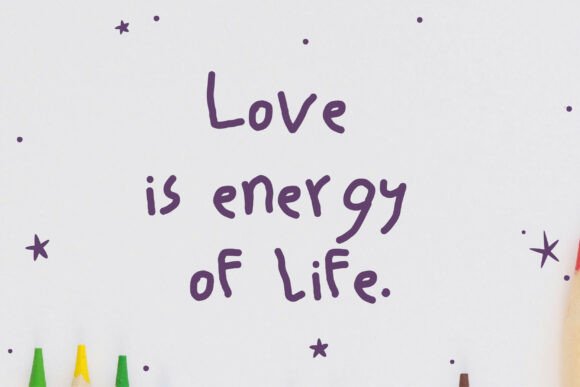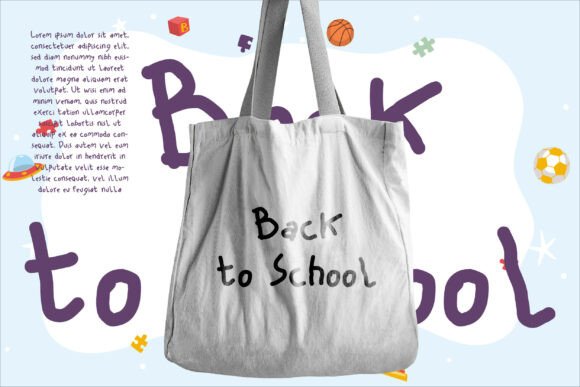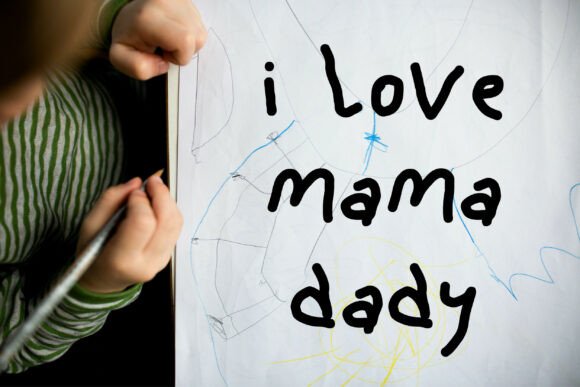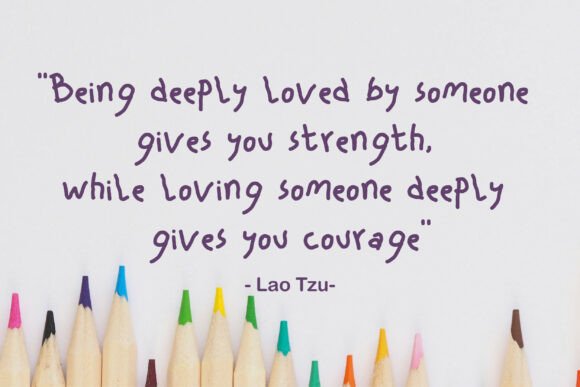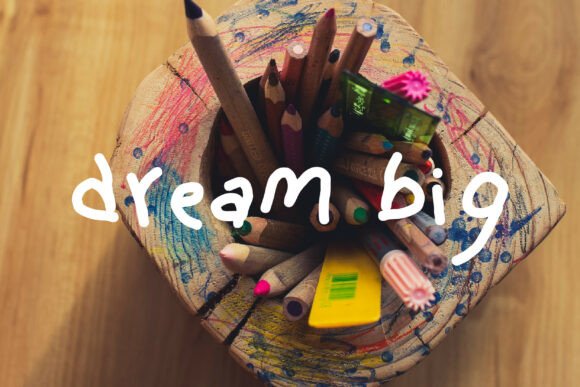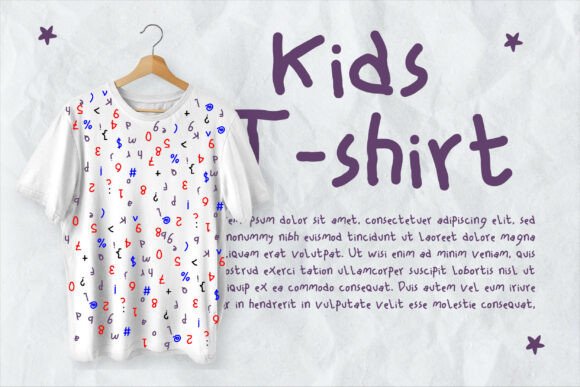
Introduction to Kids 3+ Font
Kids3+ font is a simple children’s handwriting font, suitable for all kinds of designs that require a childlike touch.
Its versatility makes it ideal for a variety of projects such as book covers, social media posts, logos, branding, digital planners, birthday invitations, greeting cards, photo albums, and more .
Key Features of Kids 3+ Font
Why Choose Kids 3+ Font?
Kids 3+ Font offers exceptional quality and versatility, making it a valuable addition to your design toolkit. Whether you’re creating for personal projects or commercial use, Kids 3+ Font delivers professional results.